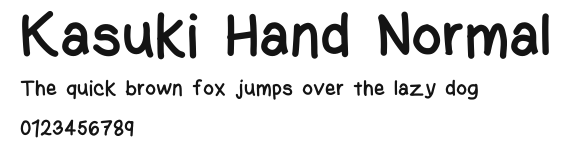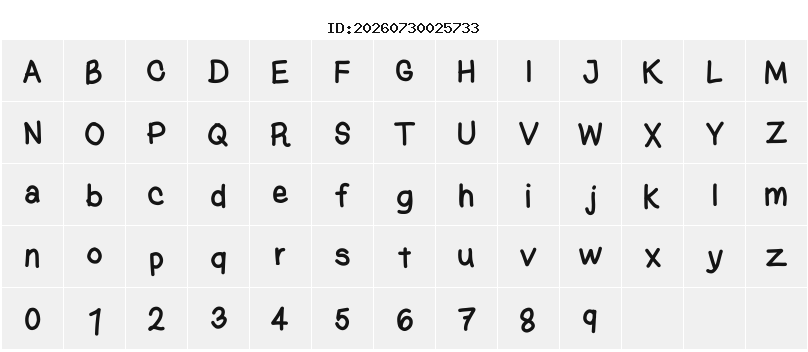
Kasuki Hand Normal Preview
• Font Name: Kasuki Hand Normal
• Full Font Name: Kasuki Hand Normal
About Kasuki Hand Normal.ttf
Kasuki Hand Normal.ttf is a modern, elegant sans-serif font designed for ultimate readability and visual harmony. Perfect for branding, headlines, web design, and print materials.